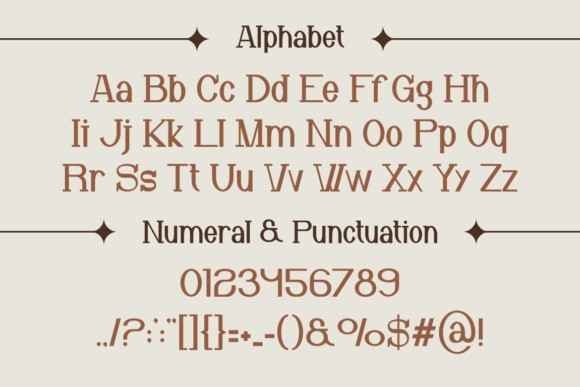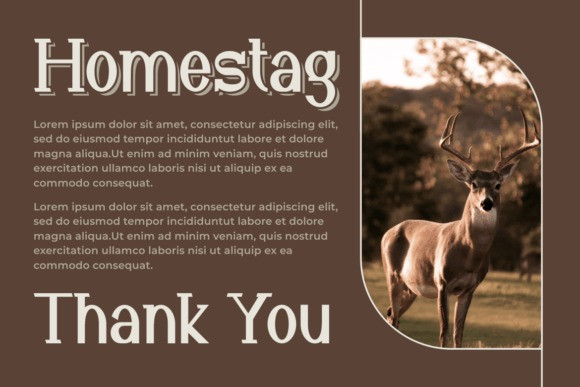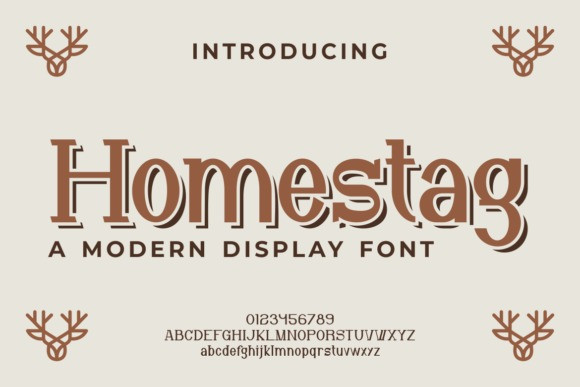
Homestag Font
Homestag Font is a modern font with one authentic touch. It’s a perfect fit for t-shirt printing, logos, branding, quotes, business cards, and more.